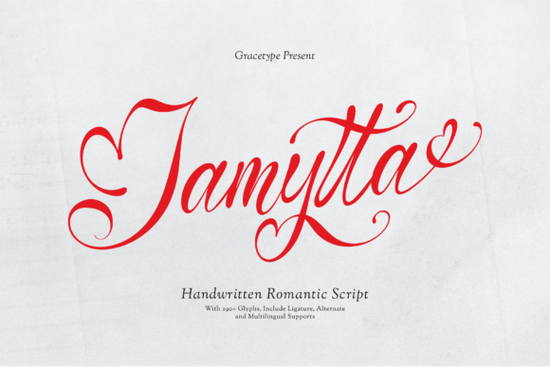
Designers, crafters, and small business owners often look for fonts that bring personality and elegance to their projects. Jamytta Font is one such typeface that stands out with its flowing, handwritten style. Whether you're working on a logo, a wedding invitation, or social media content, this font adds a touch of sophistication that’s hard to match.
Jamytta Font is ideal for those who want to add a personal, artistic flair to their designs. Its fluid lines and graceful curves make it perfect for creative projects that require a soft, romantic feel. The font works well in both digital and print formats, making it a versatile choice for a wide range of applications.
What Makes Jamytta Font Unique?
One of the standout features of Jamytta Font is its calligraphic style. Unlike many other fonts, it mimics the natural flow of handwriting, giving your text a more organic and expressive look. This makes it especially popular among designers who want to create something that feels handcrafted rather than mass-produced.
The font also includes a variety of ligatures and alternate characters, allowing for more creative flexibility. You can use these features to customize your designs and make them stand out. Whether you're designing a logo for a boutique or creating a custom quote for social media, Jamytta offers a level of detail that enhances the overall aesthetic.
Best Uses for Jamytta Font
Jamytta Font is particularly well-suited for projects that require a romantic or elegant tone. For example, it's a great choice for:
- Independent cosmetic house logos
- Premium floral studio branding
- Custom wedding invitations
- Boutique fragrance packaging
- High-impact social media quotes
For best results, pair Jamytta with simpler, more modern fonts to balance the design. This contrast can help highlight the elegance of the script while keeping the overall layout clean and professional.